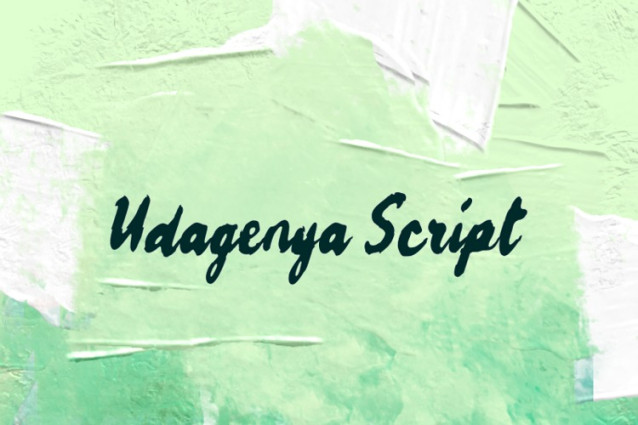
Udagenya Script Font
Udagenya Script Font is a beautiful, textured handwritten brush font with a contemporary sensibility towards design. This font has a handmade, natural feel and is suitable for use in a wide range of works.